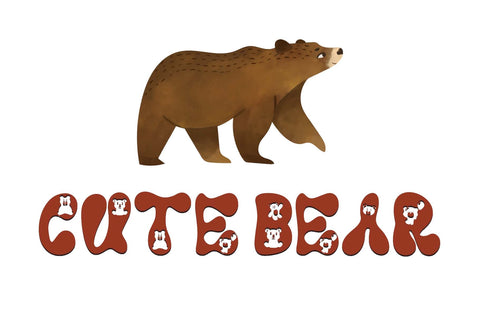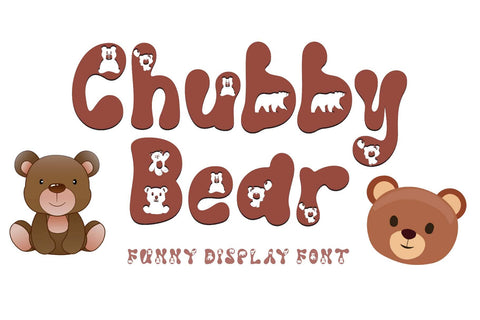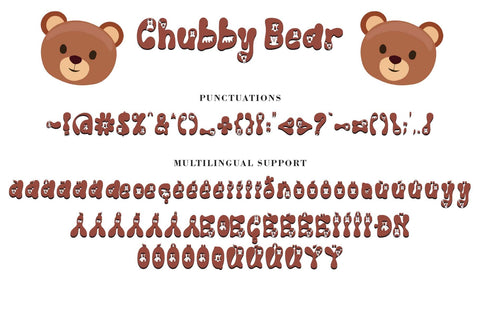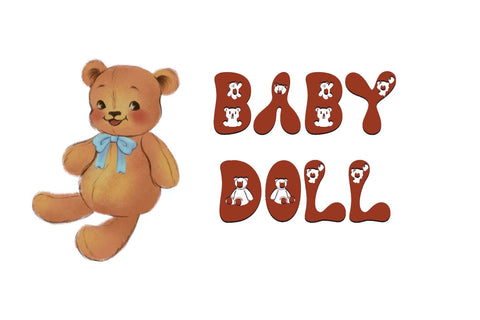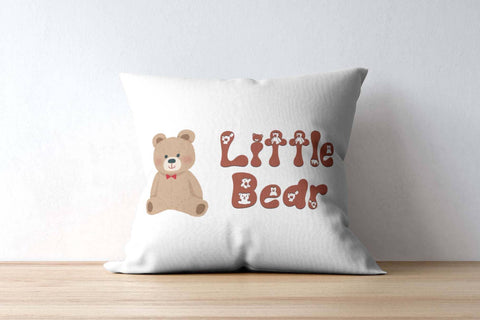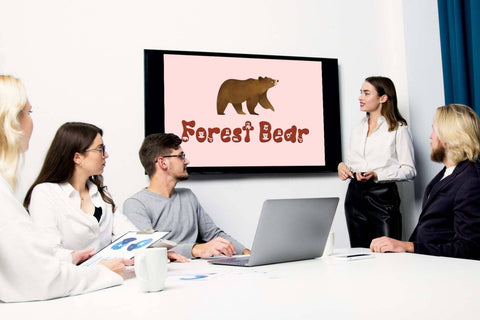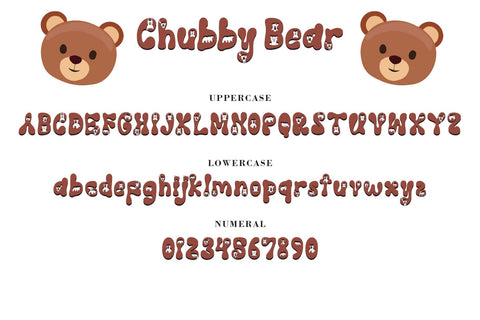
Chubby Bear
"Chubby Bear" is a unique and cute display font. This font is equipped with uppercase, lowercase, numerals, punctuations and multilingual support. Very suitable for posters, banners, branding, prints, stickers, film titles, comics, logos, kids, animation, summer and others.